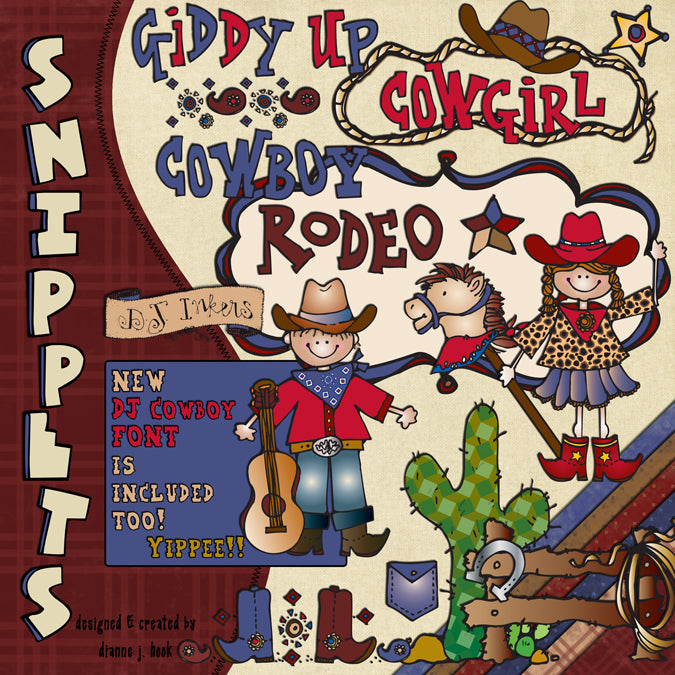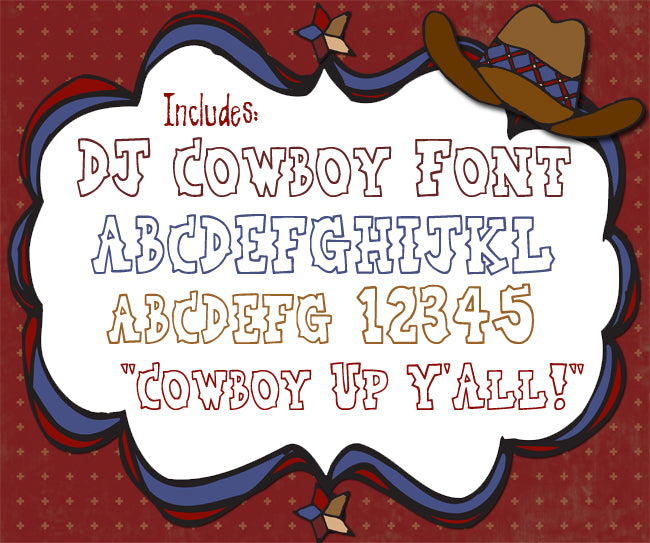
Wild West Clip Art Snippets, Font and Printables Kit
It's time to 'cowboy up' and get creative with our Wild West Snippets collection!
Round-up your projects for summertime, rodeo, cowboys, cowgirls & good
ol' American fun! This download comes with everything you need to create
a smile. Set includes:
- Our darn fun DJ Cowboy font
It's cute, completely coordinated,
& super-easy to use... so you can get right to the fun part! Perfect
for July, patriotic holidays and outdoor adventures... at home, school,
or office.